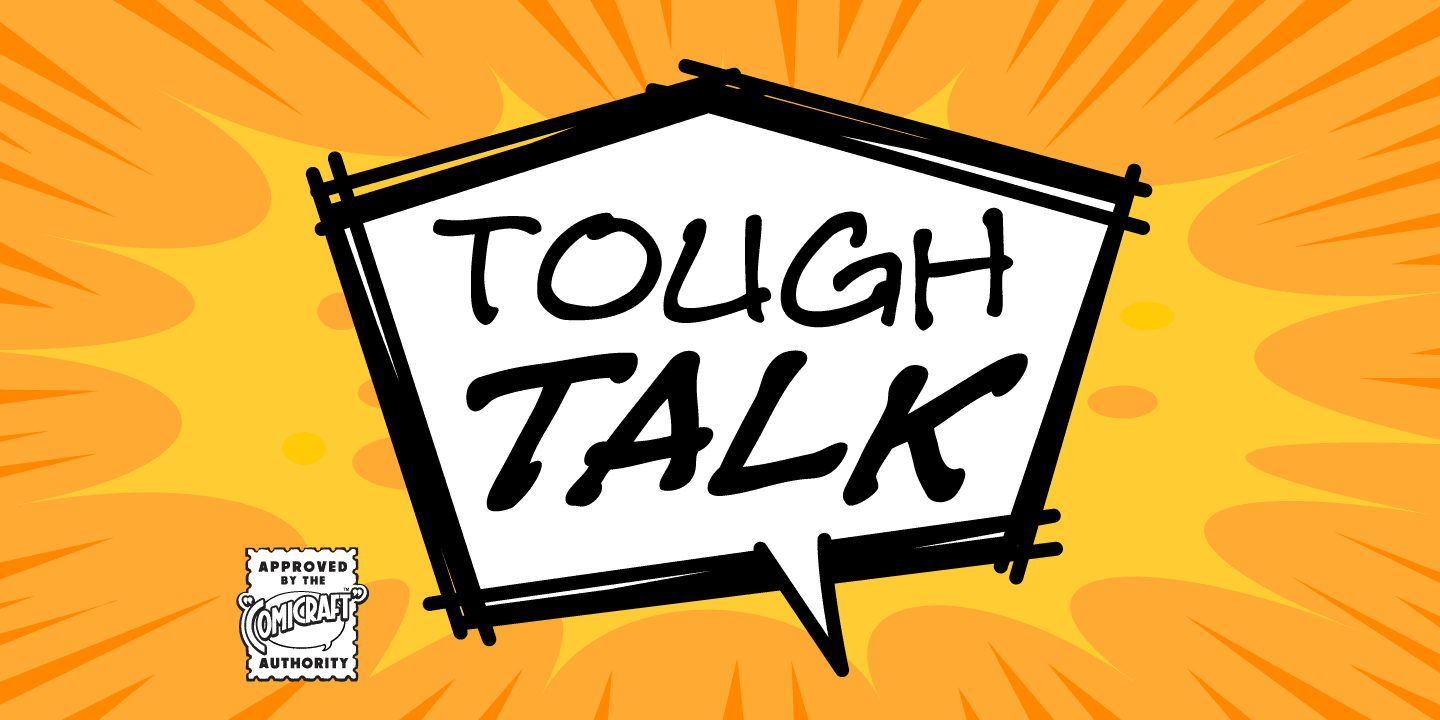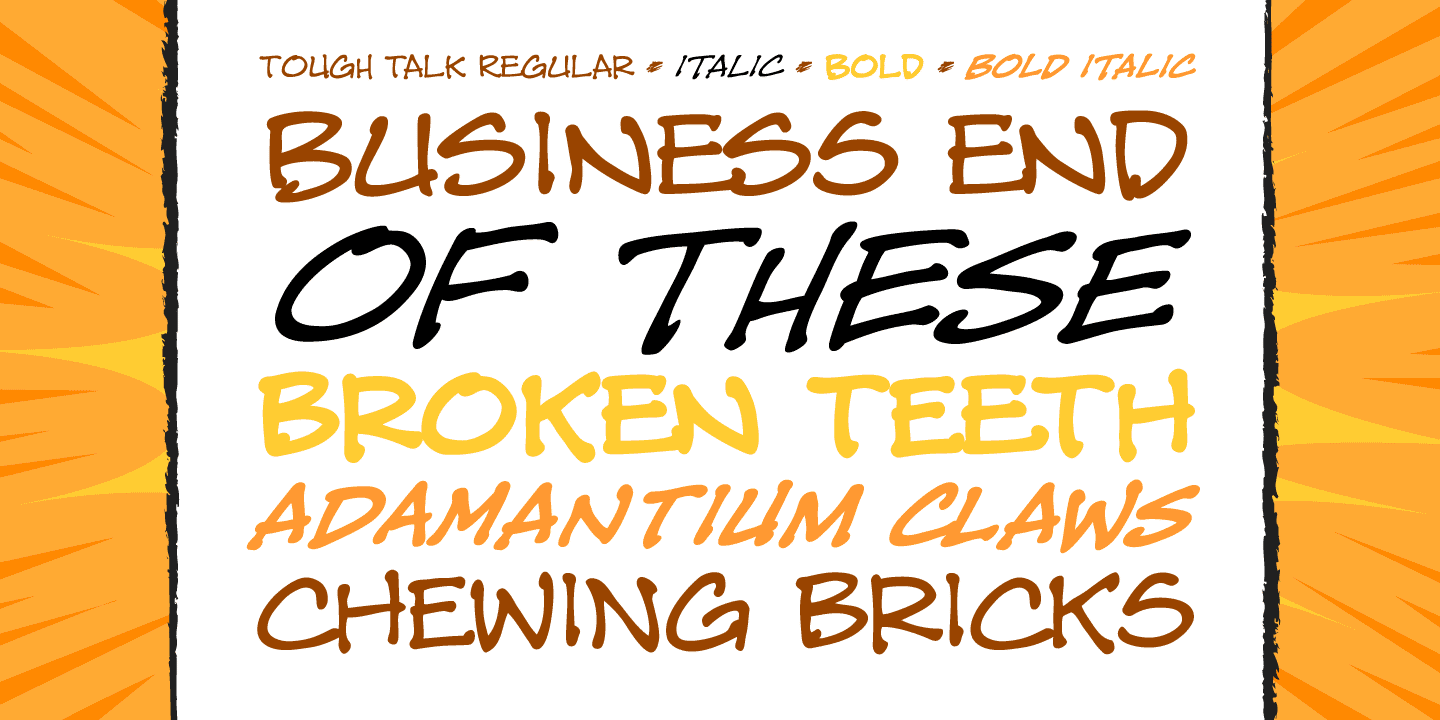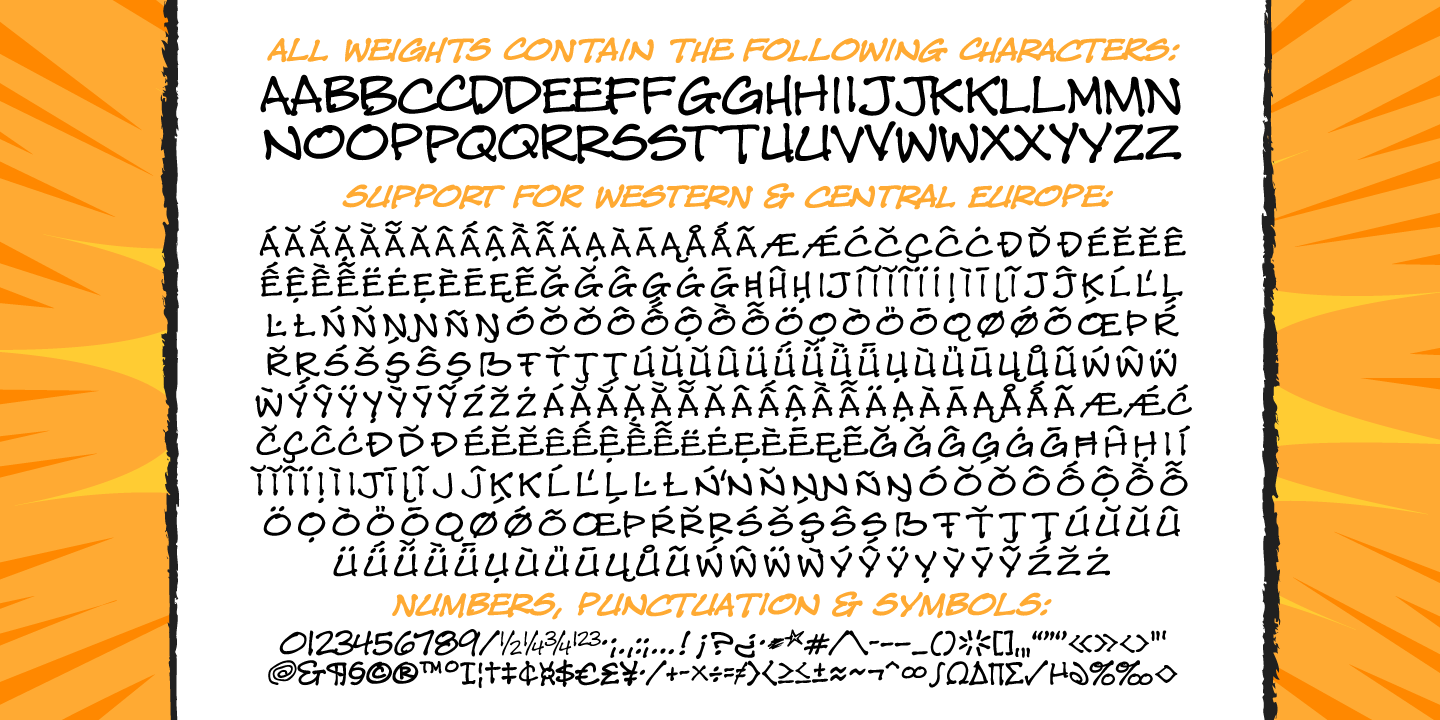
Tough Talk
Font Family by Comicraft Fonts
Buy NowWhat's that, bub? Looking for a whole train full of whupass? A six pack of adamantium shred? Listen, are you talking to me or chewing a brick? Either way you're gonna get all your teeth broken. And if you think that's all just Tough Talk, make your move, bub. (Our new font, ToughTalk, put the words in Wolverine's mouth in the pages of Steve Skroce's WOLVERINE: BLOOD DEBT, but don't tell the short Canadian over there, he's likely to get upset at the mere suggestion that people put words in his --) What? No, I didn't, uh, say you were -- ulp -- short...